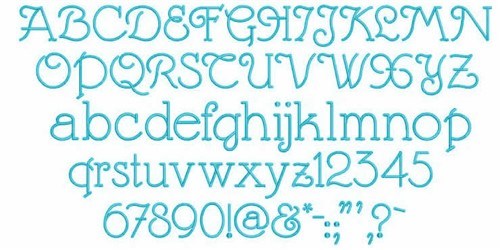
Unicorn Creatives is happy to present American Statesmen Embrilliance machine embroidery font which has This script machine embroidery font showcases flowing letters, ideal for home decor items like throw pillows. Available in BX font and Embrilliance formats. included. If you would like to view more embroidery fonts and alphabets please search our embroidery fonts page.